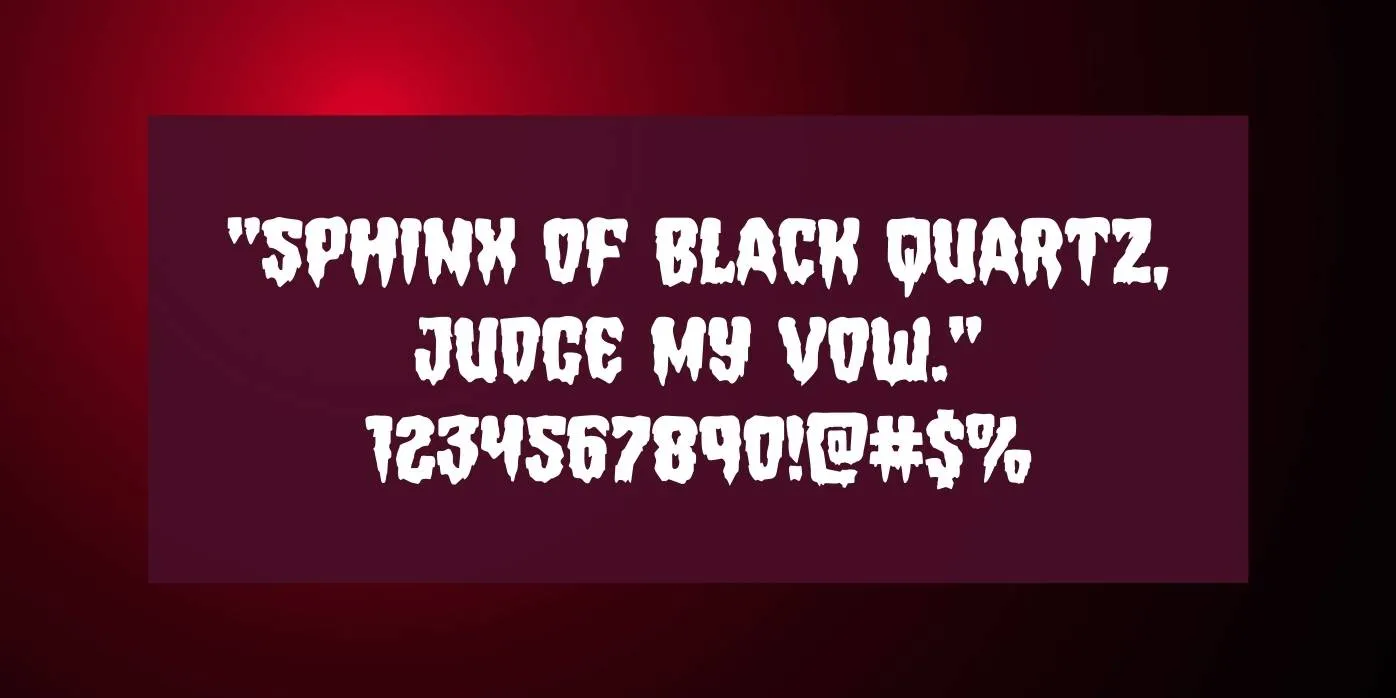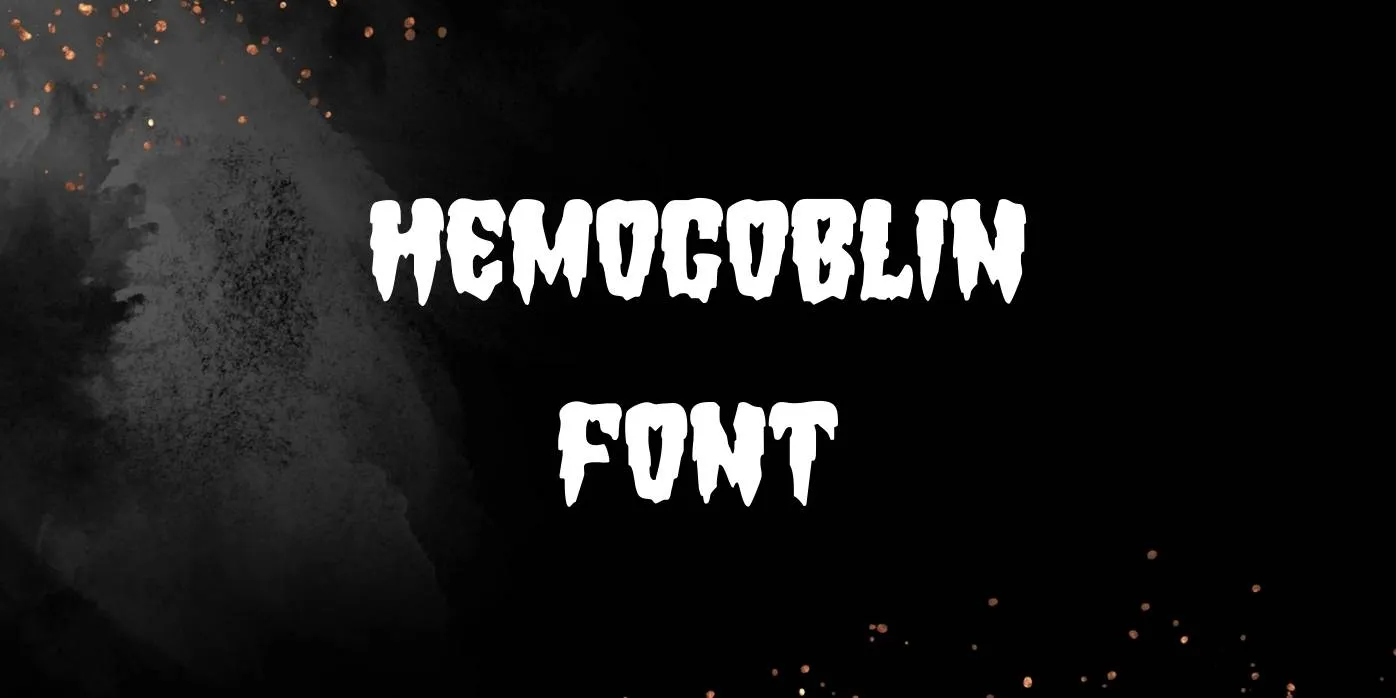
Hemogoblin Font
Hemogoblin Font is a very interesting and attractive font. It was launched in the early by the font maker Iconian Fonts. It was designed by Daniel Zadorozny. This font is categorized as a brush font.
Basically, this font is designed for the event of Halloween.   It has 19 styles which makes this font look more attractive. It has a variety of so many characters, small letters, capital letters, numbers, symbols, and punctuations. This stunning typeface provides an online generator tool facility through which copy-paste work is done more easily. You can easily pair this font with odachi brush font.